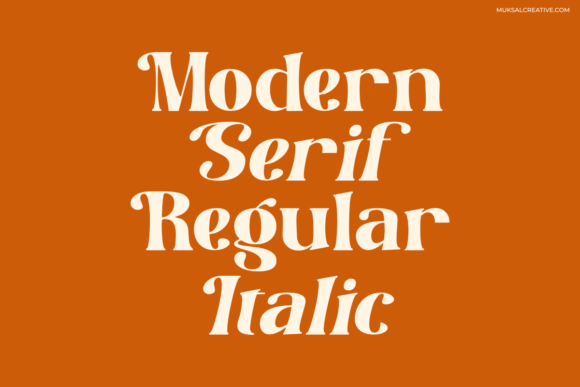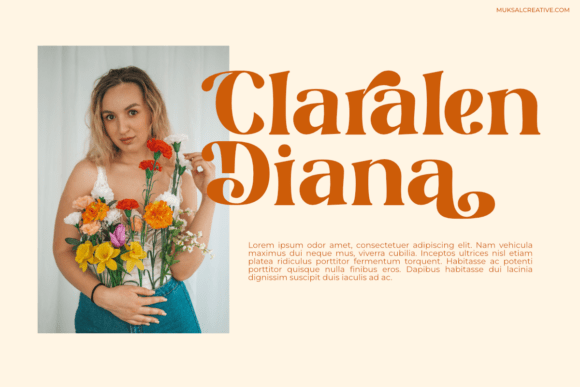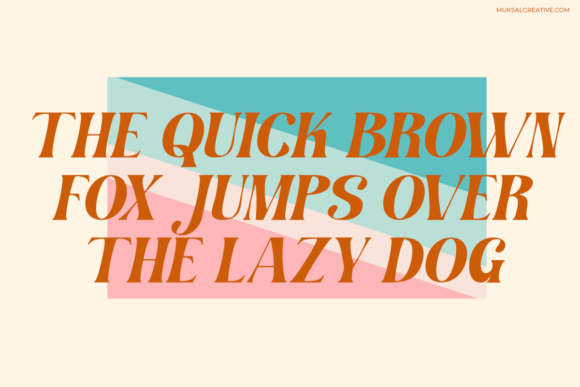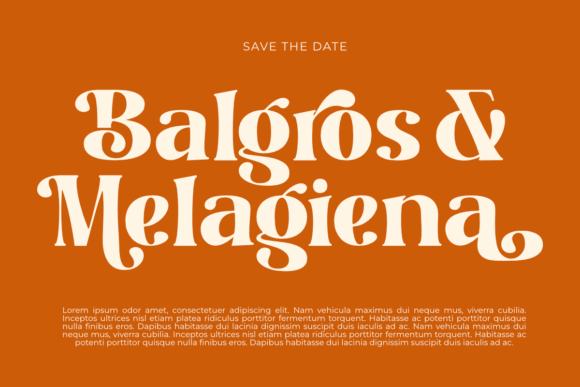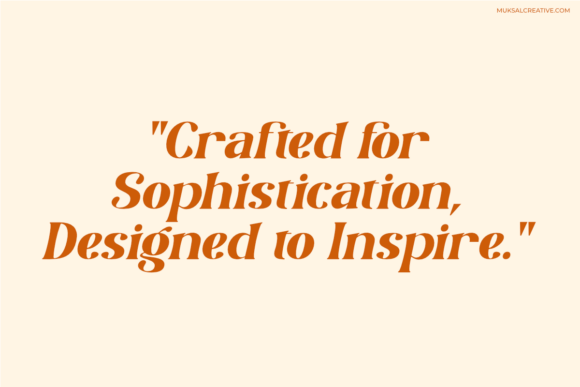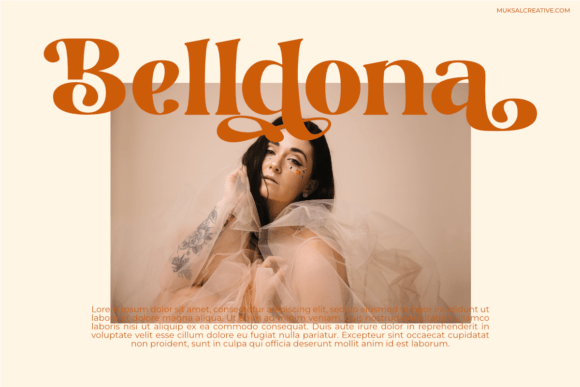
Bellavore Font: Elevate Your Design with Timeless Elegance and Modern Flair
In the world of typography, fonts play a crucial role in conveying the tone and personality of a brand. For designers and crafters seeking to make a lasting impression, the Bellavore font is an exceptional choice. This display serif font masterfully blends classic elegance with contemporary flair, making it perfect for high-impact projects that demand a luxurious and authoritative presence.
Unparalleled Design Characteristics
Bellavore’s design is distinguished by its dramatic decorative serifs and striking thick-thin stroke contrast. These features combine to create a sophisticated and refined aesthetic that exudes luxury and high-end quality. The font’s versatility is further enhanced by its alternate characters, allowing designers to inject creative customization into their work. Whether you’re crafting logos, headlines, or premium branding, Bellavore provides the perfect tools to elevate your design.
Ideal Applications for Bellavore
Bellavore’s unique characteristics make it an excellent fit for a variety of high-impact projects, including:
- Luxury packaging: Add a touch of sophistication and elegance to your product packaging with Bellavore’s refined design.
- Posters: Create eye-catching posters that command attention with Bellavore’s striking visual presence.
- Editorial layouts: Elevate your editorial designs with Bellavore’s classic yet dynamic personality.
- Digital media: Make a lasting impression in the digital realm with Bellavore’s optimized design, perfect for large-scale use.
Optimized for Large-Scale Use
One of Bellavore’s standout features is its optimization for large-scale use. The font’s wide proportions and precise details ensure that it retains its sharpness and clarity at any size, making it perfect for use in a variety of applications. This is particularly important for brands seeking to establish a strong visual identity, as a clear and legible font is essential for effective communication.
Timeless yet Dynamic Personality
Bellavore’s design strikes the perfect balance between timeless elegance and modern flair. The font’s classic serif characteristics are infused with a dynamic personality, making it perfect for brands seeking to convey a sense of sophistication and refinement. Whether you’re working on a luxury brand or a high-end product, Bellavore provides the perfect typographic solution.
Legibility and Versatility
In addition to its striking visual presence, Bellavore is also designed with legibility in mind. The font’s careful attention to detail and precise craftsmanship ensure that it remains clear and readable, even at smaller sizes. This versatility makes Bellavore an excellent choice for designers and crafters working on a wide range of projects.
Unlock Creative Possibilities with Bellavore
With Bellavore, designers and crafters can unlock a world of creative possibilities. The font’s alternate characters and versatile design make it perfect for experimenting with different styles and aesthetics. Whether you’re working on a branding project or a high-end design initiative, Bellavore provides the perfect foundation for creating something truly exceptional.
In conclusion, the Bellavore font is an exceptional choice for designers and crafters seeking to elevate their work with timeless elegance and modern flair. Its unparalleled design characteristics, versatility, and legibility make it perfect for high-impact projects that demand a luxurious and authoritative presence. With Bellavore, you can unlock a world of creative possibilities and create something truly remarkable.